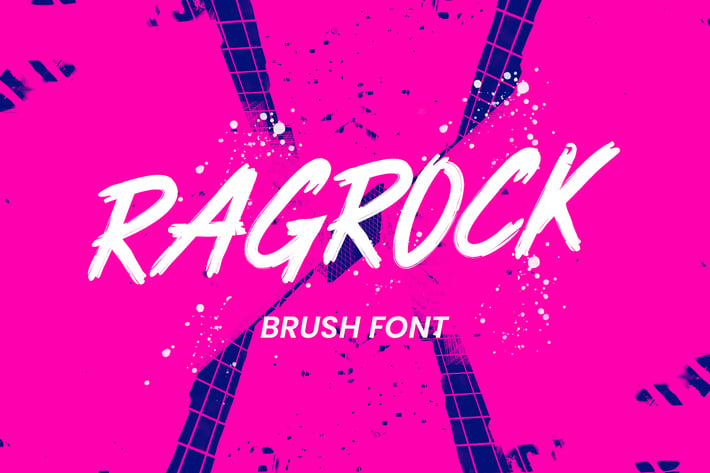
Ragrock Brush Font
Give your designs an authentic brush handcrafted feel. "Ragrock Brush Font" is perfectly suited to signature, stationery, logo, typography quotes, magazine or book cover, website header, flyer, clothing, branding, packaging design and more.